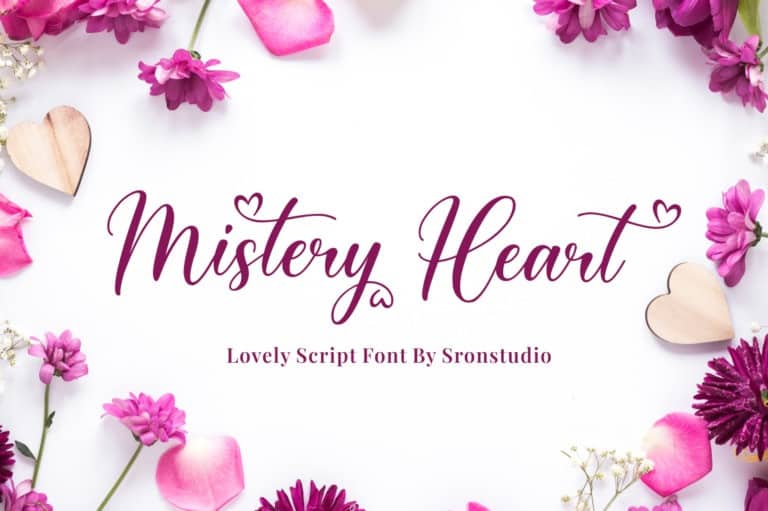
Mistery Heart Font
Mistery Heart Calligraphy Font is a very unique handwriting, the shape is modern but pleasing to the eye and the style is very natural. This modern calligraphy font includes a modern Love font which can be varied with the Normal font, This font is designed to have the potential to take your every creative idea to the highest level!
A lovely Calligraphy Font perfect for crafting, branding, invitation, stationery, wedding designs, social media posts, advertisements, product packaging, product designs, label, photography, watermark, special events, or anything.